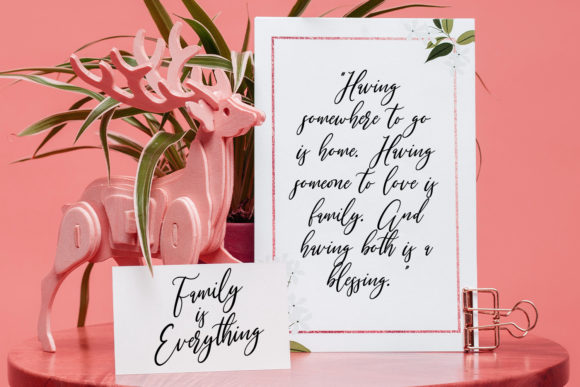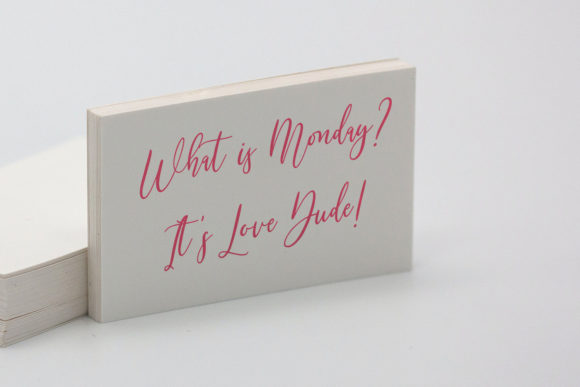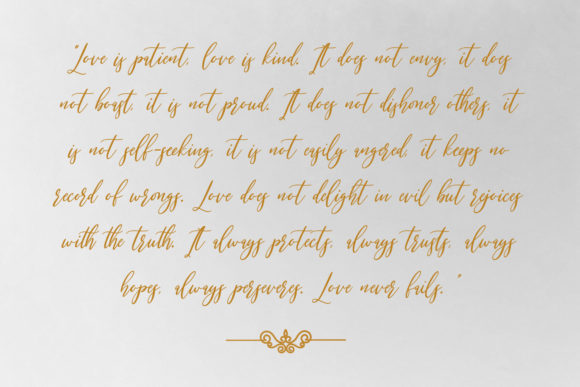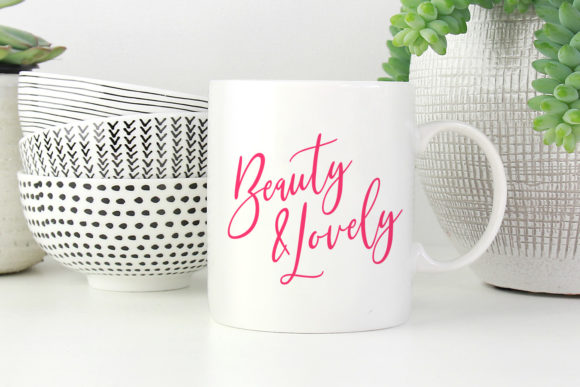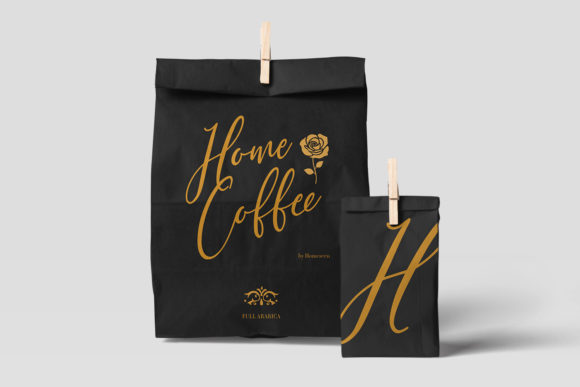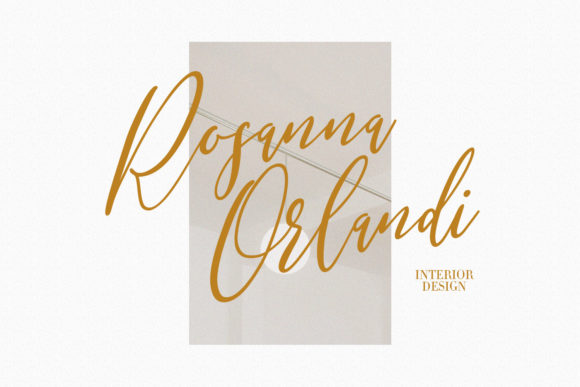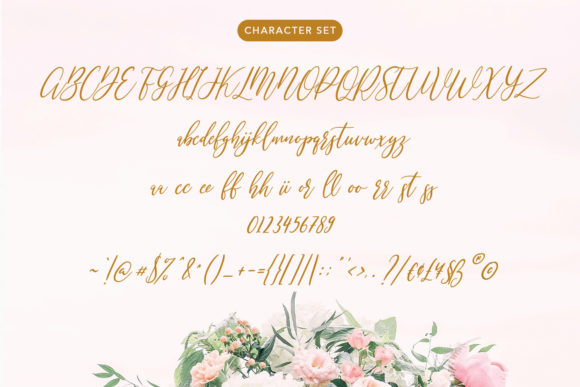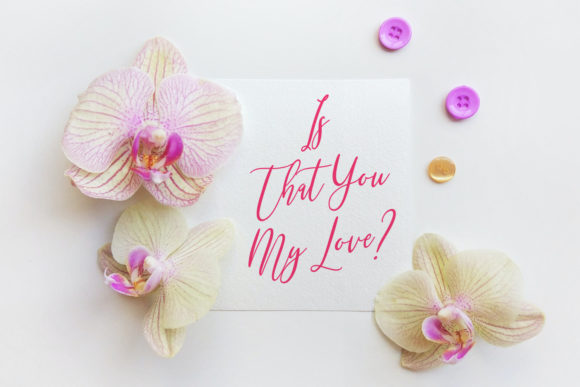
Mondayslove Font
About Mondayslove Font
Mondayslove is a lovely and timeless handwritten font. It is the best choice for creating eye catching logos, branding and quotes. Every letter has a unique and beautiful touch, which will make your design come alive!